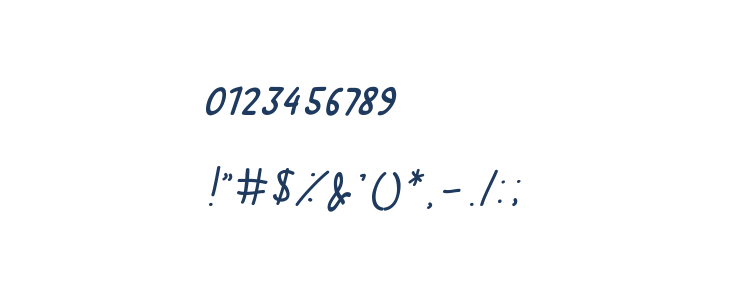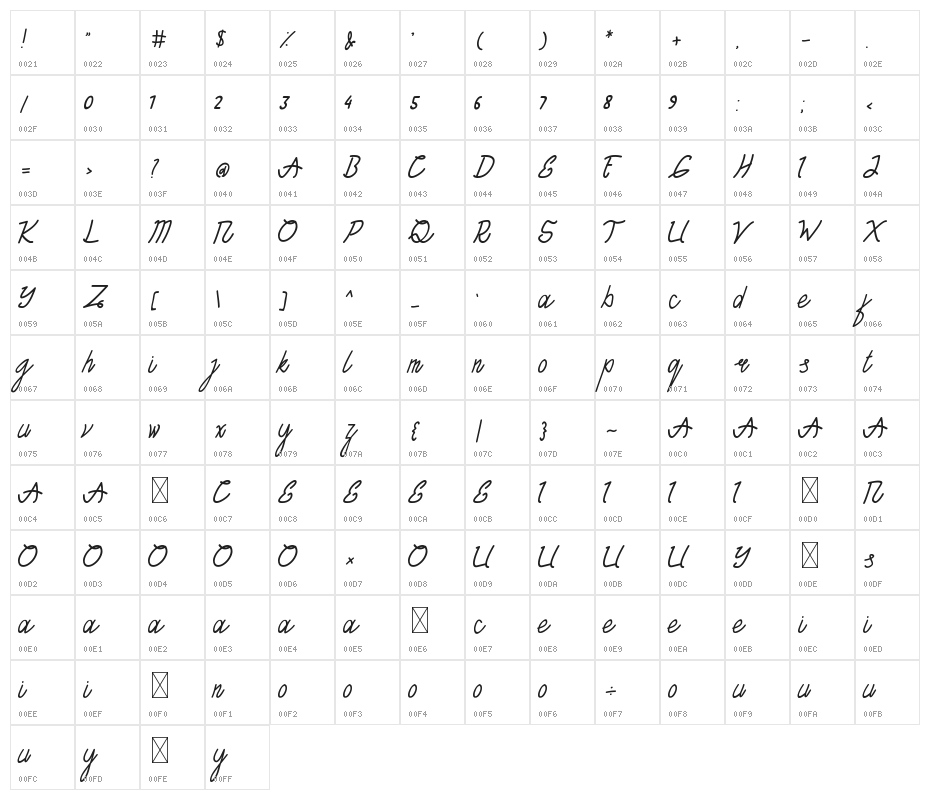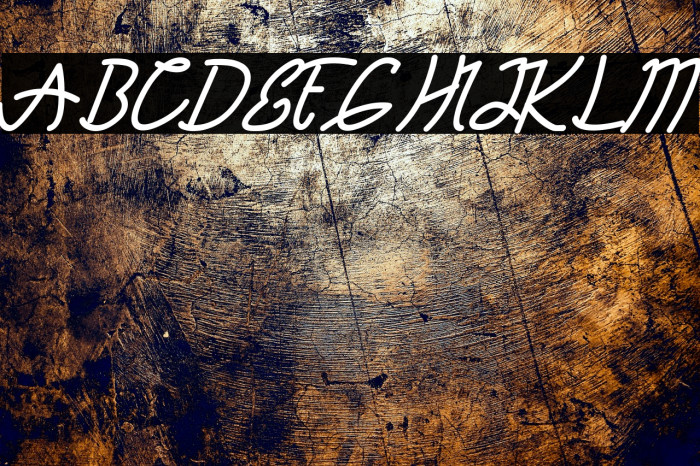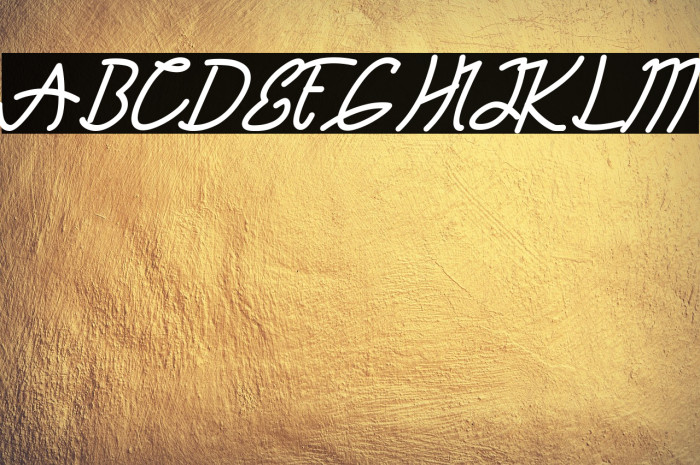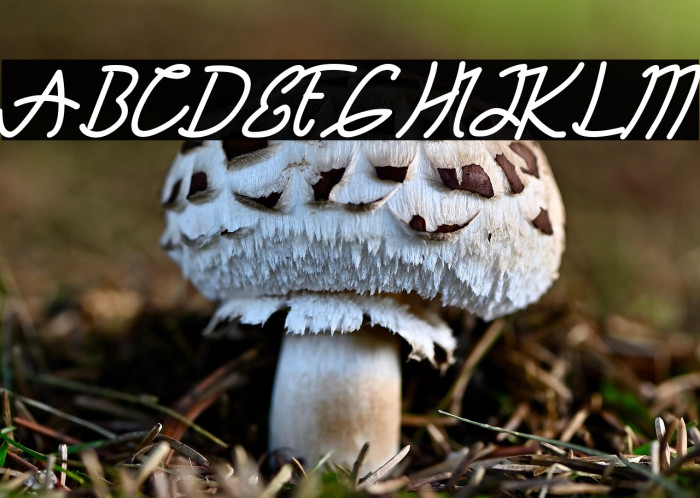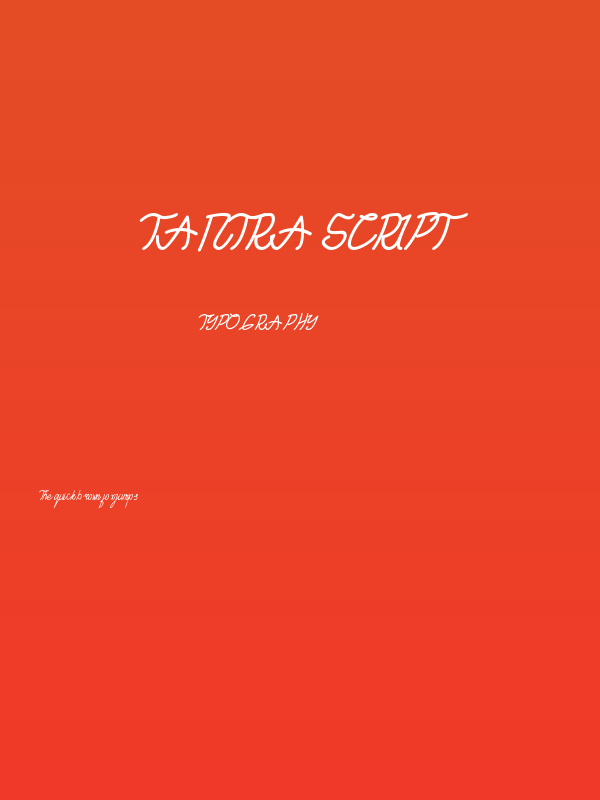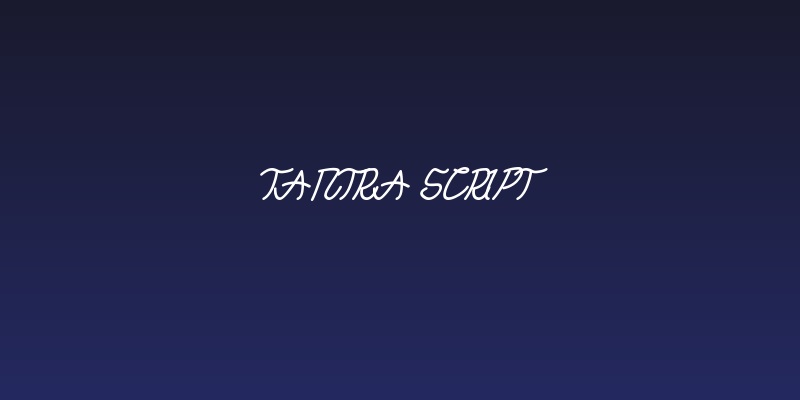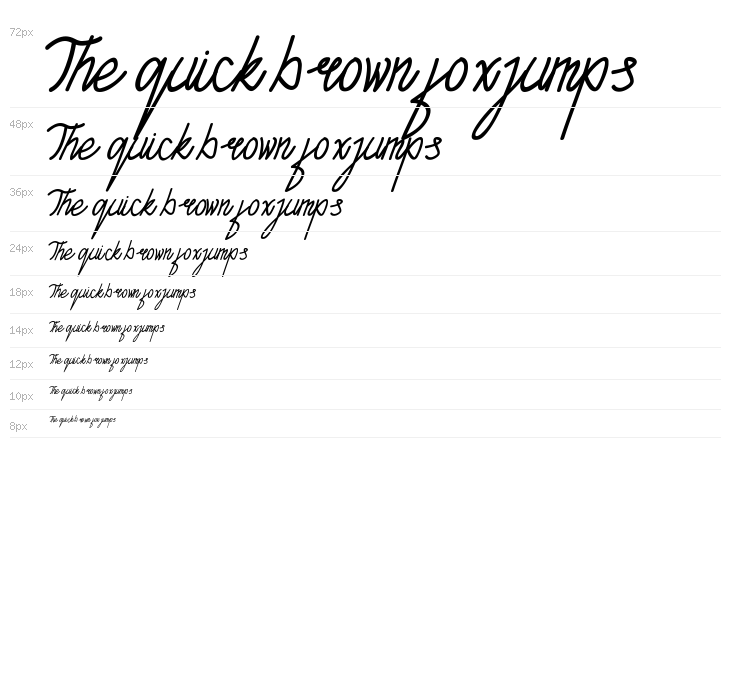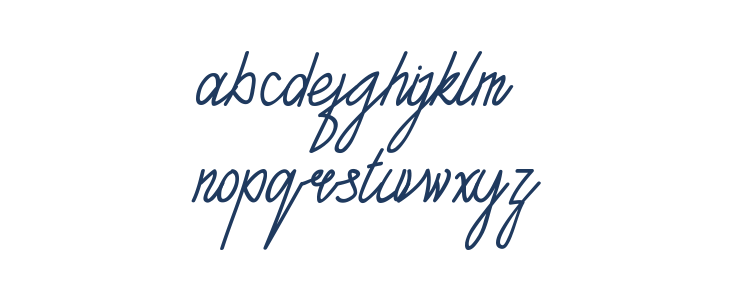
TANTRA Script Font
TANTRA Script Description
This font exhibits a fluid and dynamic script style, characterized by its elegant, flowing lines and cursive nature. The uppercase letters are bold and slightly slanted, giving a sense of movement and grace. The lowercase letters maintain a consistent flow, with smooth connections between characters, enhancing readability while retaining an artistic flair. Numbers and special characters are designed to complement the overall script style, with a harmonious balance between form and function. The font's aesthetic is both modern and timeless, making it versatile for various design applications.
| Overall Style | Elegant, Modern |
| Use Case | Logos, Invitations, Branding |
| Proposed Projects | Ideal for wedding invitations, greeting cards, branding projects, and elegant logo designs. |